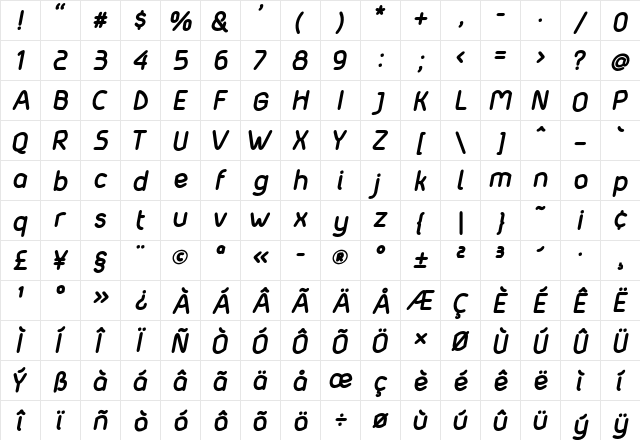
Matondo BoldItalic
| Foundry | Audry Kitoko Makelele |
| Designer | Audry Kitoko Makelelele |
Design Context for Matondo Typeface
Matondo offers clean, dependable letterforms without strong stylistic allegiance, making it a practical choice for designers who need flexibility. The slanted form adds forward momentum and visual energy. Its bold stroke weight gives it real presence on the page.
Pro Tip: Use Matondo for emphasis, pull quotes, and subheadings where its slanted energy can add rhythm to the layout.